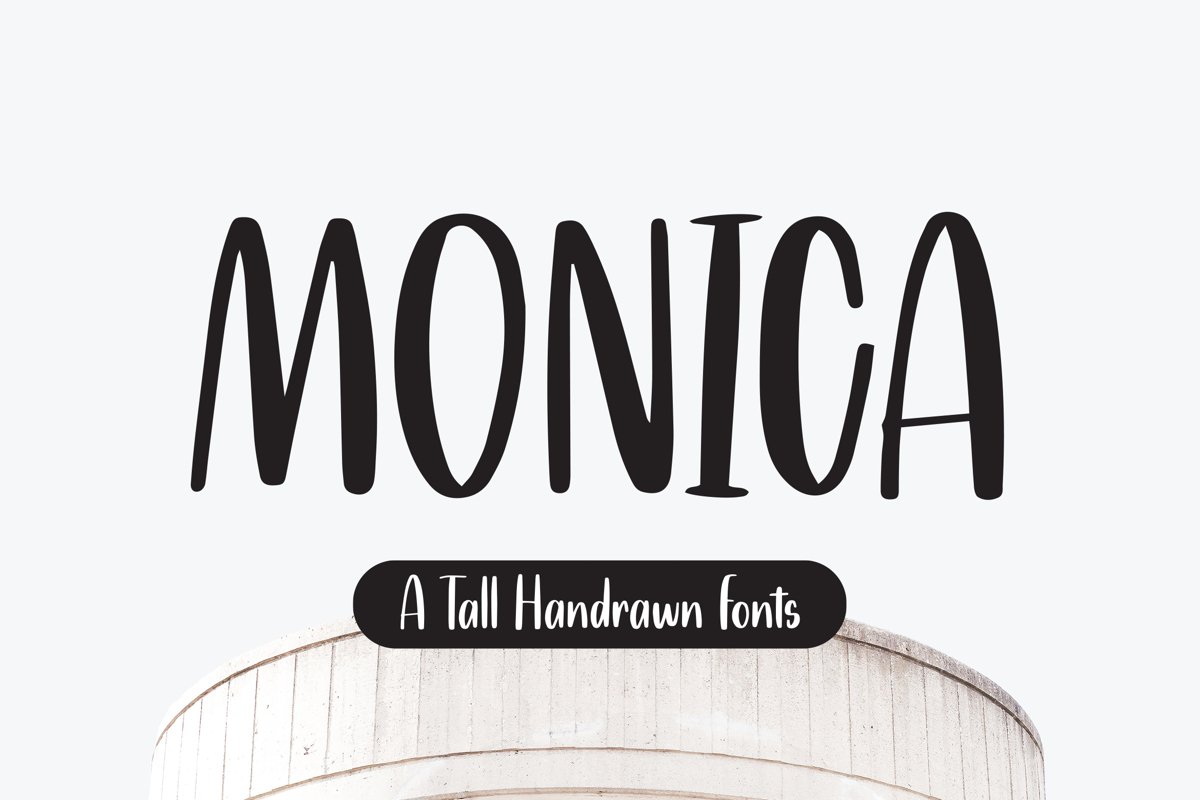
Monica - Tall Handrawn Font that contain lowercase, uppercase, symbol, and also support multi language. There’s a lot ligatures in this font. This Font also comes with ligatures, alternates and many more. this font suitable for fashion, branding, catalog and other design what you want.